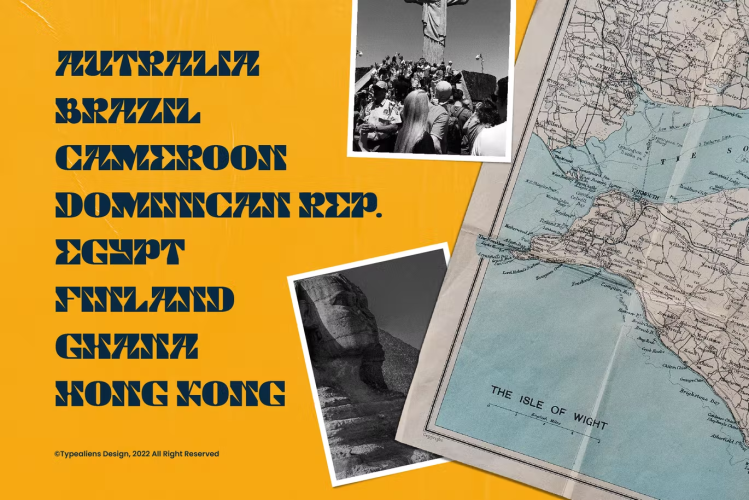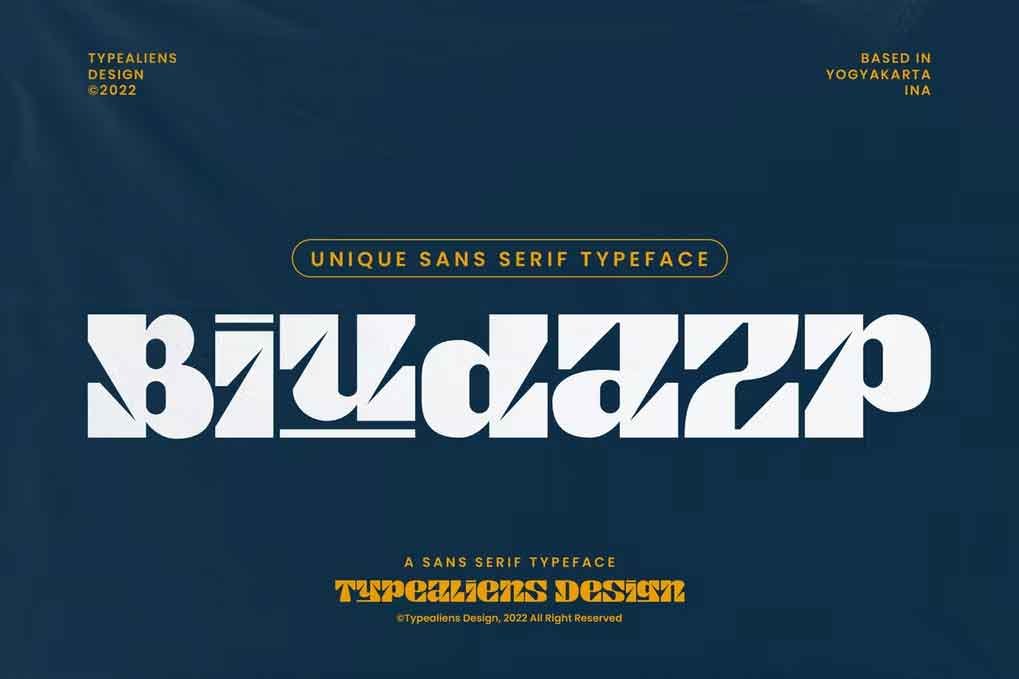
Biudazp Font
BIUDAZP is a unique font that is based on sans serif, this modern font is perfect for contemporary designs. Being the headline font on your website will be very interesting or as the headline of a modern magazine. A font consisting of uppercase and lowercase that have the same height.
Of course, this font is the main one as a display font, its uniqueness will make every design you make more interesting and different from the others
Biudazp Font is a Decorative Fonts font that brings a professional and versatile look to your projects. BIUDAZP is a unique font that is based on sans serif, this modern font is perfect for contemporary designs.